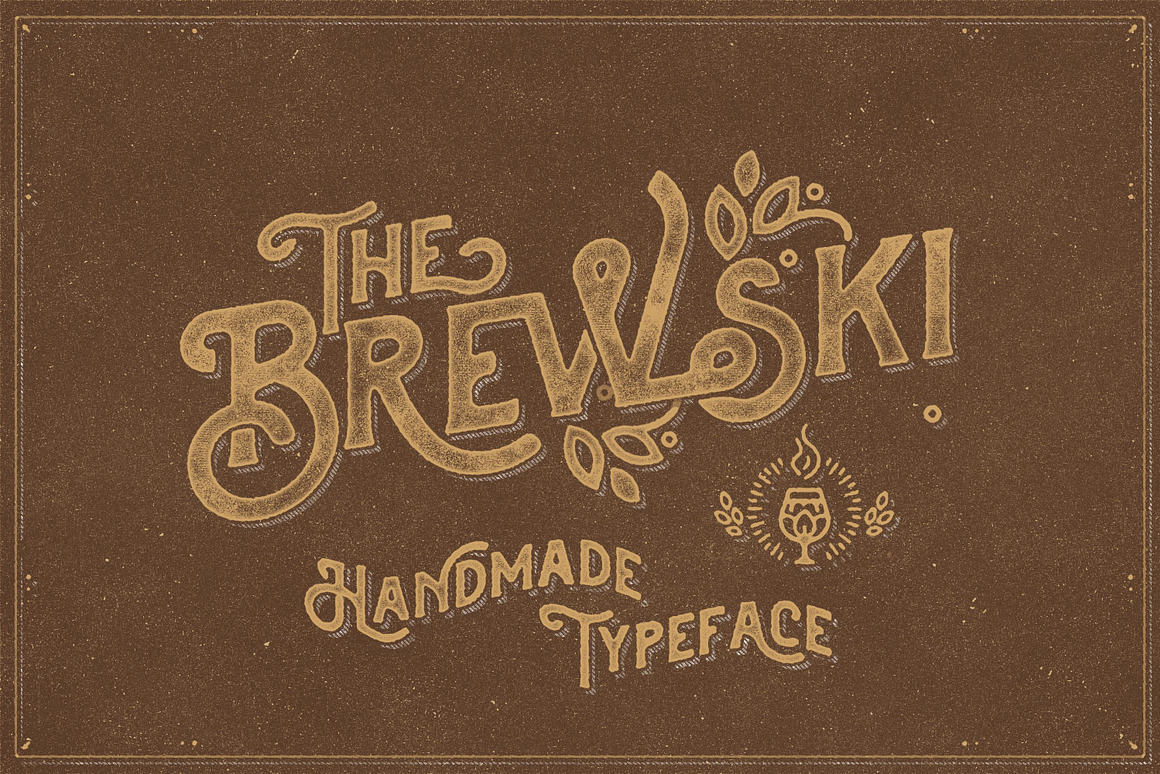
The Brewski - Textured Typeface
Brewski Font is perfect for brewery branding, craft beer labels, pub signage, restaurant menus, vintage-style logos, distillery packaging, beer festival posters, bar merchandise, tavern advertising, and artisanal beverage marketing materials.
What makes Brewski Font so exciting is its authentic vintage character that perfectly captures the spirit of traditional brewing culture while maintaining modern functionality and readability. This typeface embodies the craftsmanship and heritage associated with artisanal brewing, featuring hand-drawn qualities and rustic charm that instantly evoke images of classic taprooms and time-honored brewing traditions. The font's distinctive personality comes from its ability to balance rugged authenticity with polished professionalism, making it ideal for brands that want to communicate both quality craftsmanship and approachable personality.
Brewski Font comes in multiple weights and styles including Regular, Bold, Condensed, Outline, and Distressed versions, along with decorative elements and brewery-themed icons that enhance its versatility for comprehensive brand systems.
Whether you're launching a craft brewery, designing beer packaging, or creating authentic pub atmospheres, Brewski Font Free Download provides the perfect typographic foundation for establishing credible brand identity in the competitive beverage market. This versatile typeface excels across various applications from large-scale signage to detailed label work, maintaining its characteristic charm while ensuring excellent legibility. The font's carefully crafted letterforms include subtle imperfections and organic variations that add authenticity without compromising professional appearance.
Beverage industry professionals and design agencies consistently choose Brewski Font for projects requiring genuine craft appeal and brewing heritage authenticity. Its robust character makes it particularly effective for microbreweries, gastropubs, and artisanal beverage brands seeking to differentiate themselves in crowded markets. The font's warm, inviting personality creates immediate emotional connections with consumers while communicating values of tradition, quality, and craftsmanship that are essential for building loyalty in the craft beverage community.